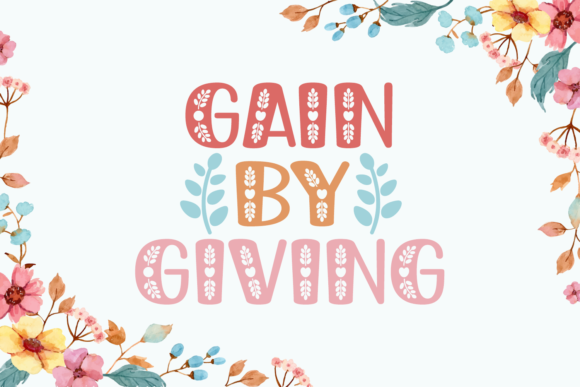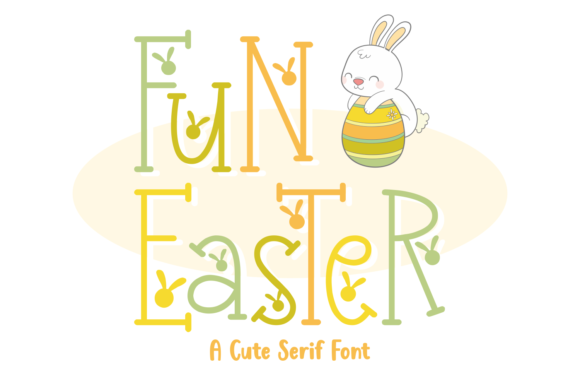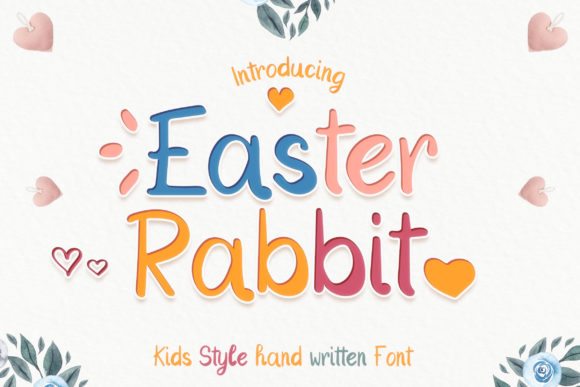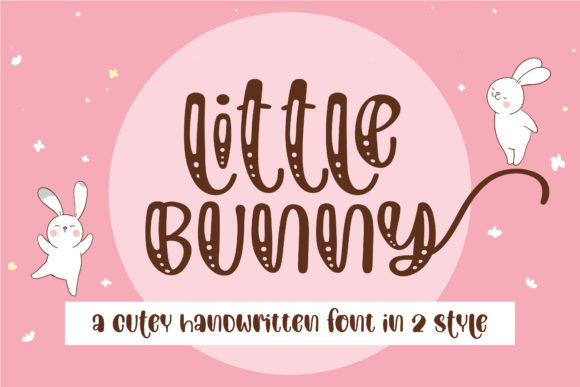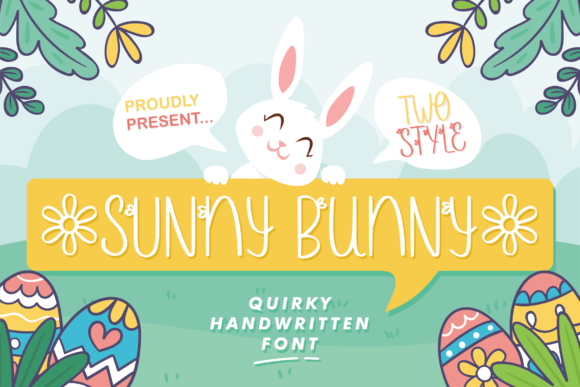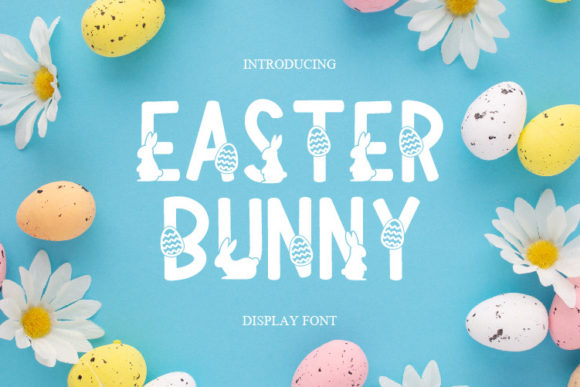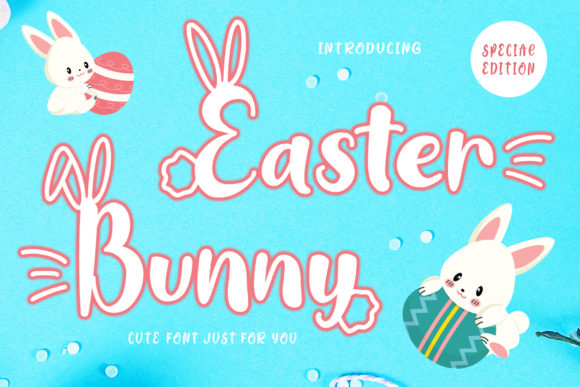
30 Premium Easter Fonts for Commercial Use
Today’s post is a collection of exceptional premium Easter fonts for commercial use that will charm you and will add richness to your designs. All of these bright Easter fonts are crafted by professional designers. You can use them to design quotes, greeting cards, invitations, posters, packaging, labels, t-shirts, and more.
Picking the accurate and the perfect fonts for your Easter design projects is a crucial step, the pairing font selection will elevate and beautify your design. Therefore, I carefully selected 30 of the best Easter fonts that will give an alluring look to your crafts, either a personal project or a commercial sale.
Here are the 30 premium Easter fonts for commercial use:
1. Gain by Giving Font
2. Qeastera Cute Font
3. Easter Blessings Font
4. Fun Easter Font
5. Rabbit Garden Font
6. Cute Easter Bunny Font
7. Easter’s on Its Way Font